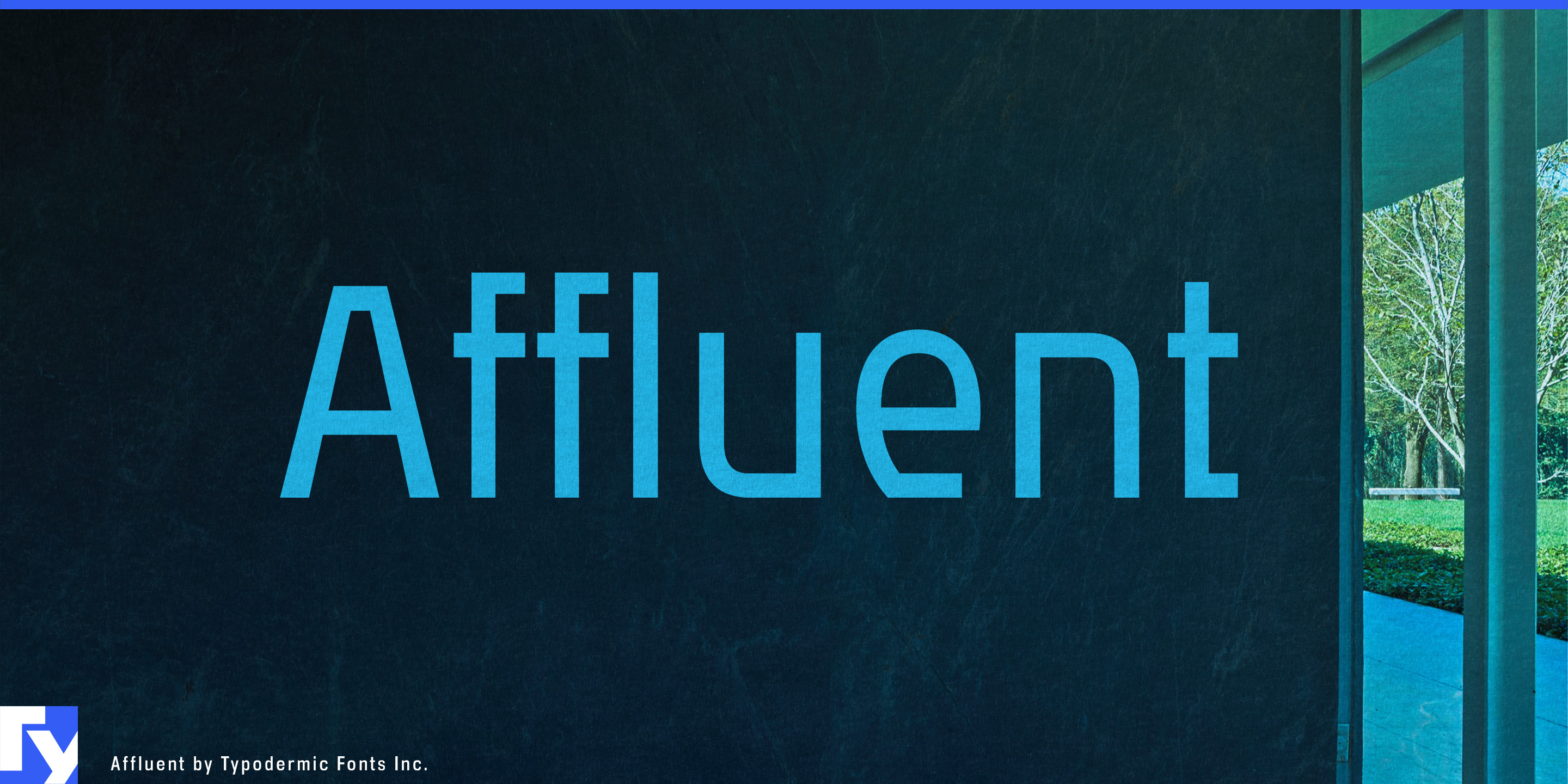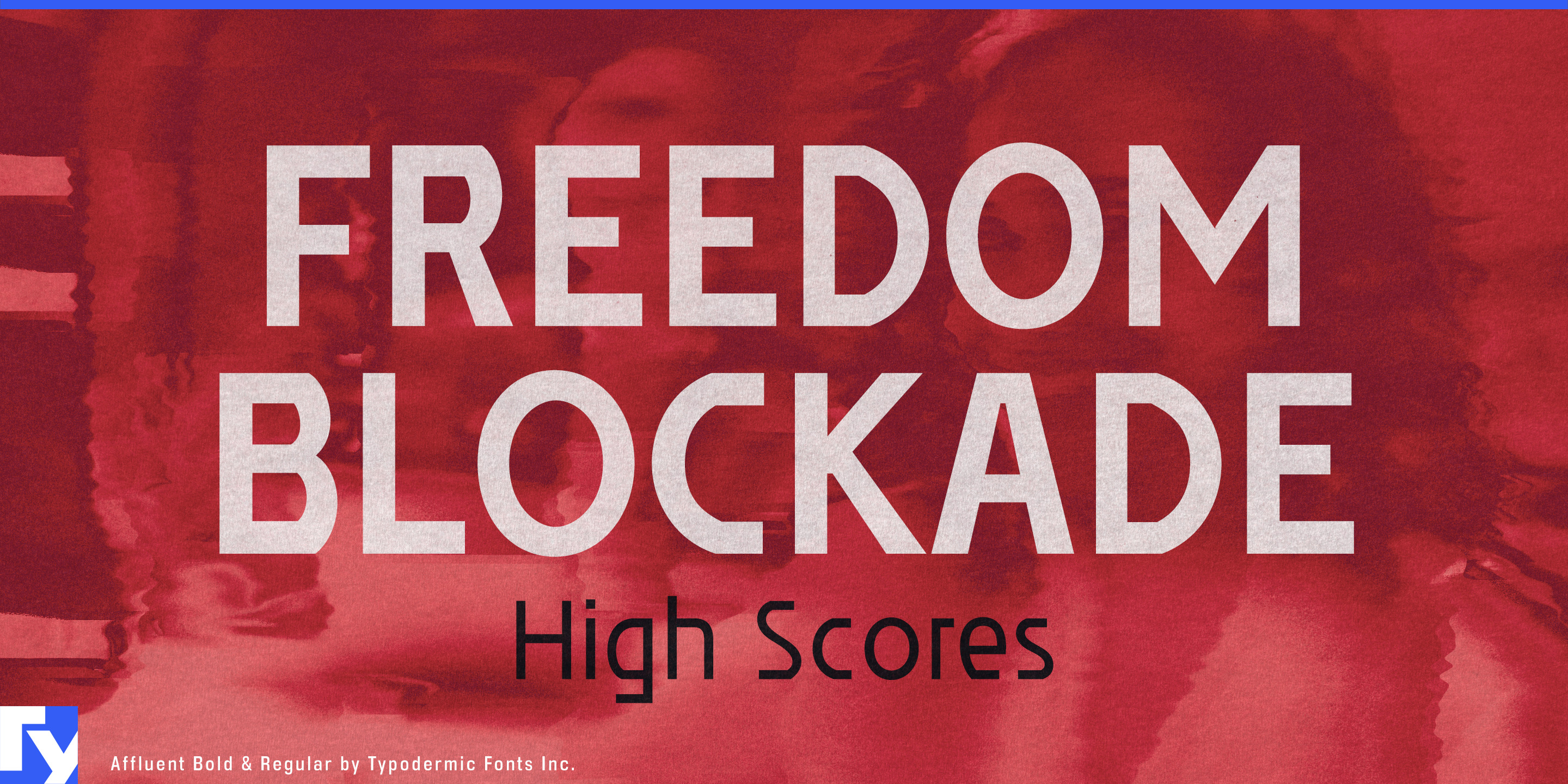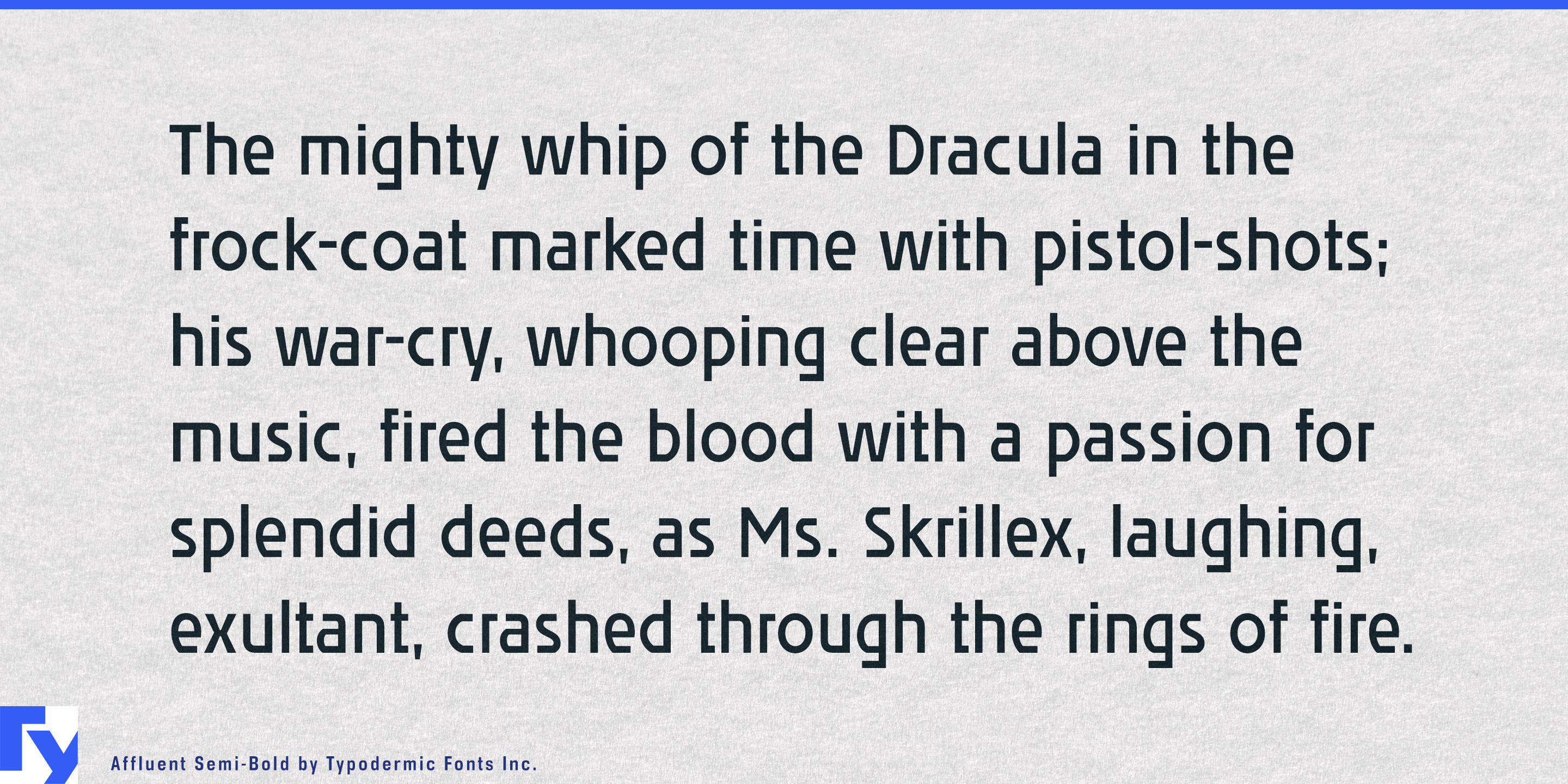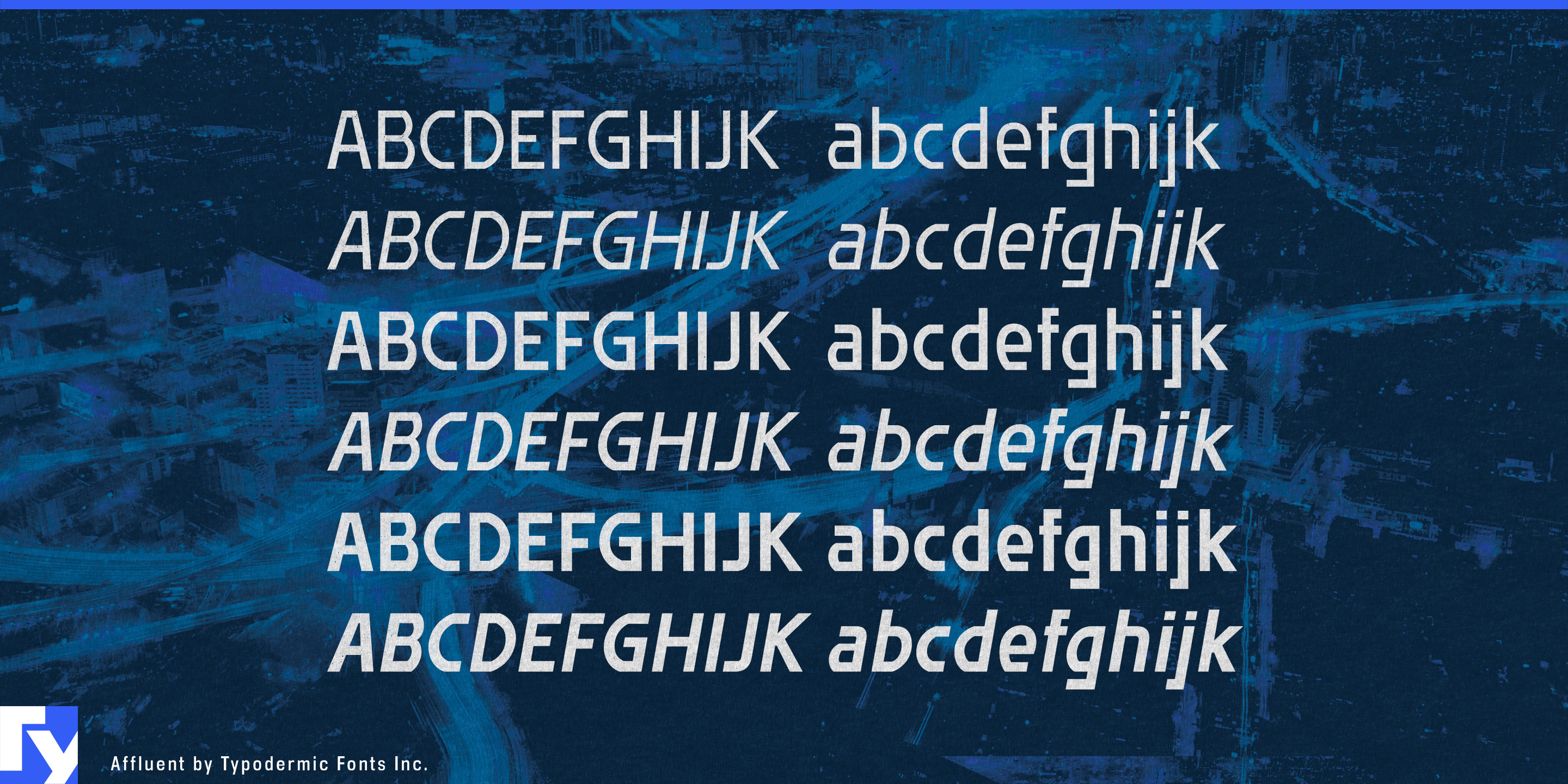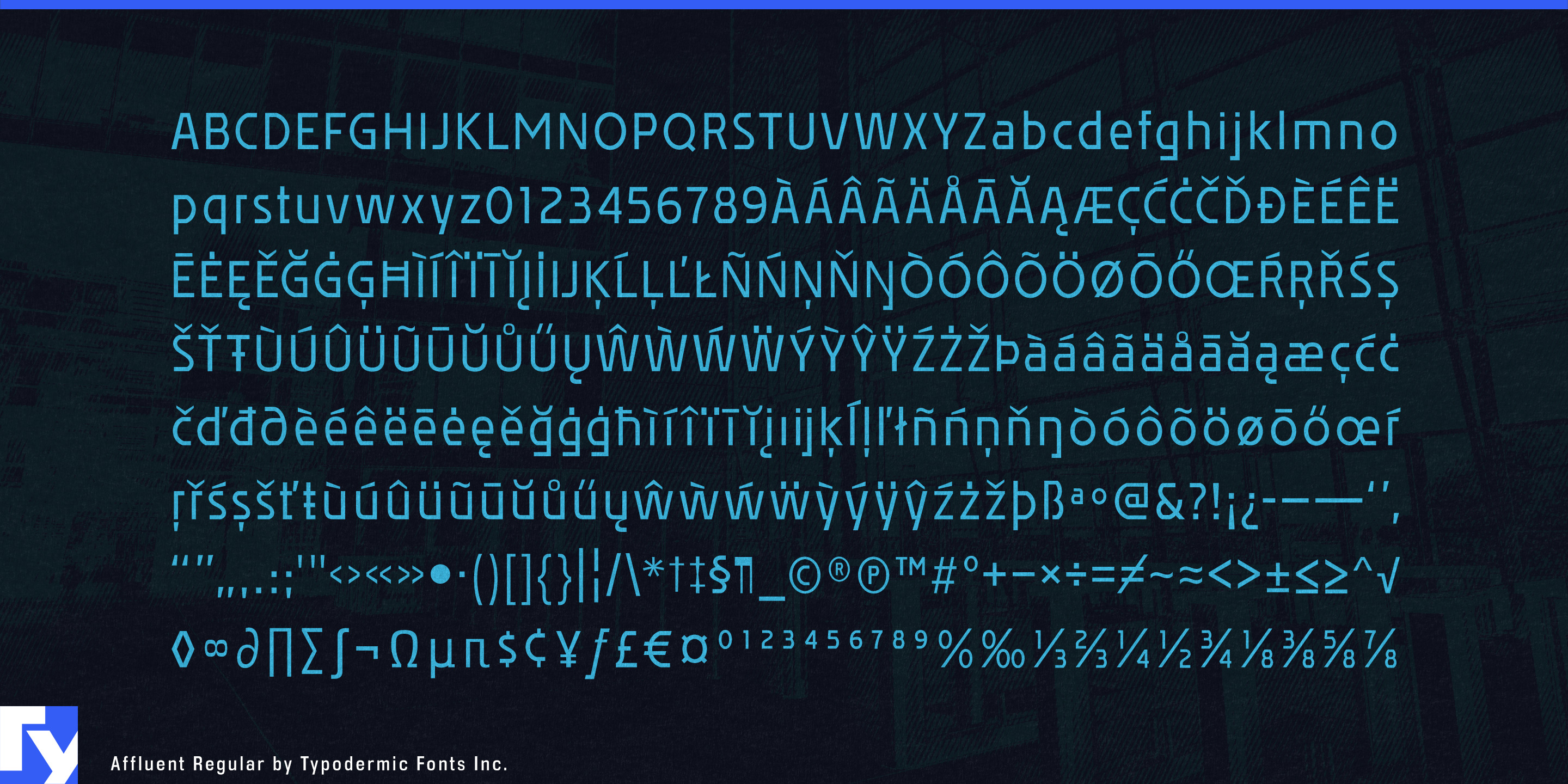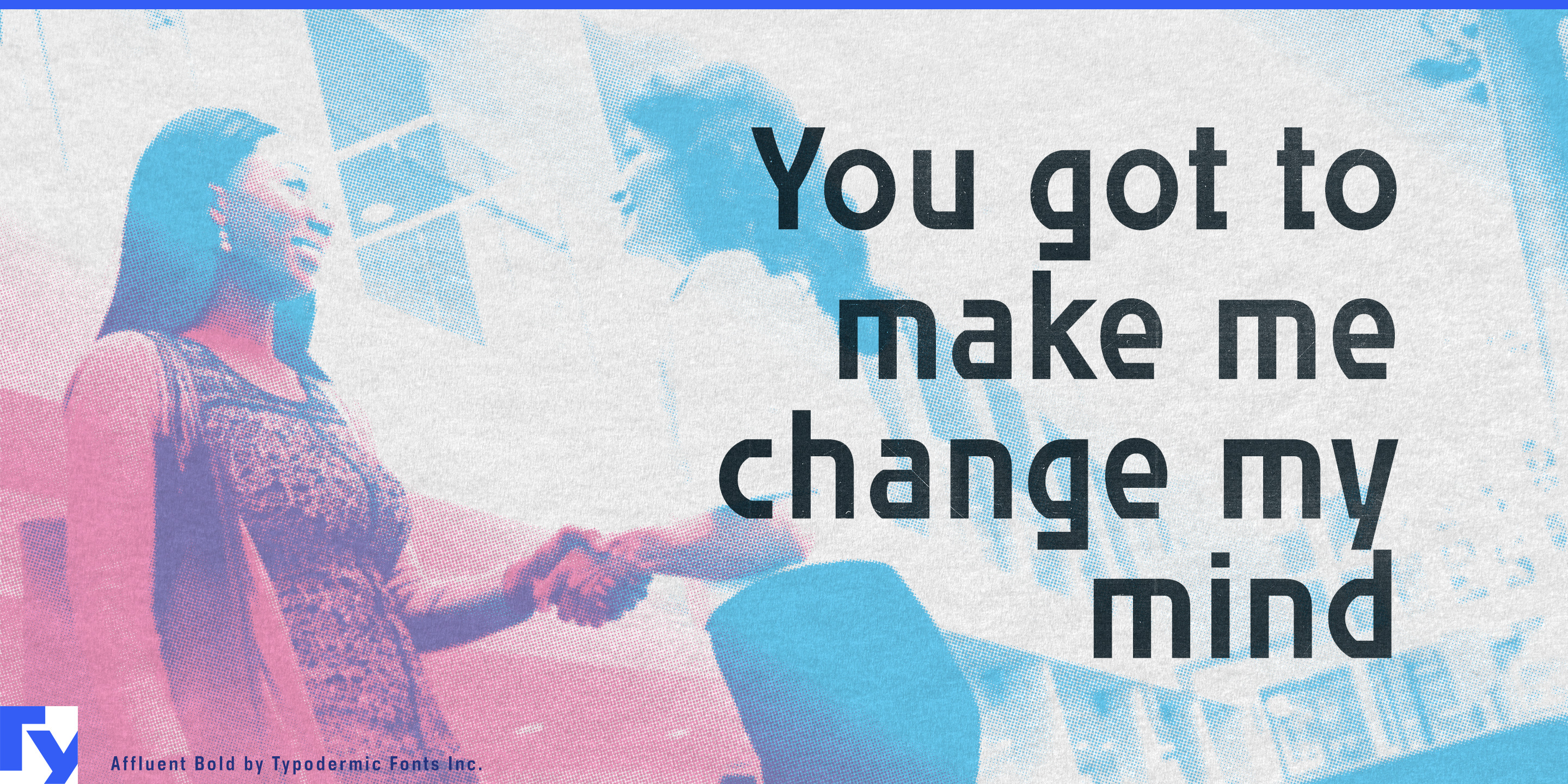
Affluent
Affluent isn’t a pretty typeface—and that’s the point. Born in the dying days of the CRT, it was engineered to solve a problem most designers didn’t even know existed: small text that shimmered, dazzled, and tore your eyes apart on cheap TVs.
Its verticals run clean and unrestrained, but the near-horizontal lines are quantized and sharpened—an intentional quirk that killed the blur without killing the vibe. The result is a sans-serif with a strange, technical pulse; part retro game HUD, part laboratory label maker. Available in Regular, Semi-Bold, Bold, and Italic, Affluent is as versatile as it is uncompromising. It speaks clearly across dozens of Latin-based languages, but always in its own voice: cold, digital, and a little bit weird.
Affluent works where gloss and polish would feel dishonest—retro console branding, dystopian UI mockups, sci-fi packaging, and anything that needs that early-2000s hardware grit. It’s typography with a story etched in phosphor.